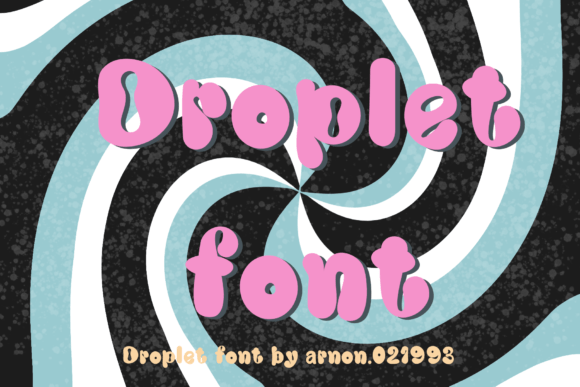
Discover the Perfect Drop of Creativity: Droplet Font
Have you ever sat in front of a blank design canvas, feeling stuck and unsure where to begin? That’s where the magic of typography comes in – a single font can transform your entire design. For me, it was the moment I stumbled upon the Droplet Font that sparked a wave of creativity. Its playful and stylish vibe immediately drew me in, and I knew I had to learn more.
The Droplet Font is a versatile and modern sans-serif typeface, perfect for designers looking to add a youthful touch to their projects. Suitable for both professional and casual designs, it’s an ideal choice for branding, labels, websites, and more. What makes it truly valuable for designers is its ability to adapt to any style or theme, making it a go-to font for creating unique and eye-catching designs.
- Unique Characteristics: Droplet Font features a unique, hand-drawn design with a playful and modern feel. It’s perfect for creating eye-catching headlines and titles.
Droplet Font Review
I recently had the chance to work with the Droplet font, and I must say it’s been an interesting experience. Here are my honest thoughts.
- Unique design: Droplet’s irregular shapes and quirky feel make it perfect for creating visually appealing headers and titles.
- Legibility: Despite its unusual design, Droplet remains highly legible, even at smaller font sizes.
- Limited font sizes: Droplet starts to look a bit pixelated at font sizes above 24px, which might be a concern for large-scale projects.
- Not ideal for body text: While Droplet is great for headings and titles, it’s not the best choice for body text, as it can be a bit overwhelming.
- Some letters may be difficult to read: Certain letters, like ‘k’ and ‘q’, can be tricky to decipher, especially at smaller font sizes.
Droplet is a fun, quirky font that’s perfect for adding some personality to your designs. While it has some limitations, it’s definitely worth considering for projects that require a unique, eye-catching feel. Just be mindful of its limitations and use it sparingly to avoid overwhelming your audience.
Getting the Most Out of Droplet Font
For the best results, use the Droplet Font in combination with bold or italic styles to create visual interest.
Experiment with different font sizes and line spacing to optimize readability.
The Droplet Font is ideal for:
1. Water-themed designs, such as beach or ocean-inspired graphics.
2. Modern and minimalist designs, where a clean and simple font is desired.
3. Digital displays, such as website headers or mobile app interfaces.
Alternatives to Droplet Font
Rounded Edge Font
Rounded Edge Font is a clean and modern sans-serif font, ideal for designs that require a touch of sophistication and elegance. It features rounded edges and smooth lines, making it perfect for creating a friendly and approachable atmosphere.
Compared to Droplet Font, Rounded Edge Font has a more polished and refined look, suitable for corporate and luxury brands. It lacks the playful and whimsical feel of Droplet Font, but excels in conveying a sense of professionalism and sophistication.
Soft Brush Font
Soft Brush Font is a hand-drawn sans-serif font that mimics the look of a soft brush. It’s ideal for designs that require a personal and creative touch, such as children’s books, greeting cards, or social media graphics.
Compared to Droplet Font, Soft Brush Font has a more organic and natural feel, perfect for creating a sense of warmth and friendliness. While Droplet Font is more geometric and modern, Soft Brush Font is more expressive and artistic.